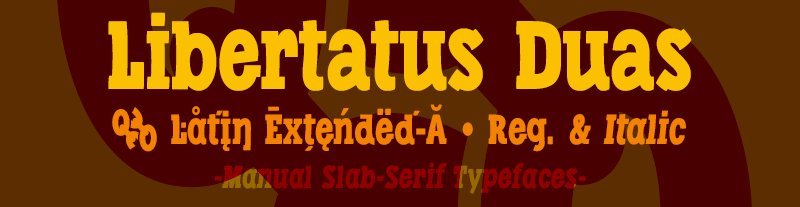
Condensed fonts with thick Slab type serifs and two versions: Regular and Duas, the latter more condensed and with a different set of capital letters. The drawing of these fonts is manual, despite the fact that they are geometrically inspired fonts, I have modulated the antlers and terminals to achieve a spontaneous movement effect resulting in a fun and contemporary style. They include the Bitcoin symbol: Ligatures: b# ================= FULL VERSIONS & COMMERCIAL LICENSE: https://defharo.com/fonts/libertatus-manual-slab-serif/ |